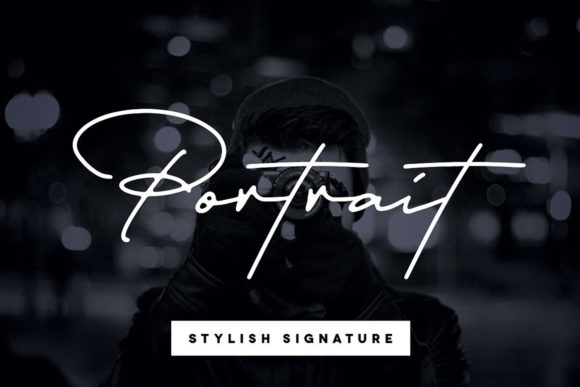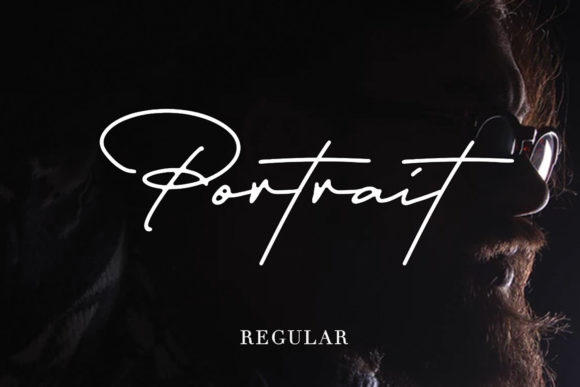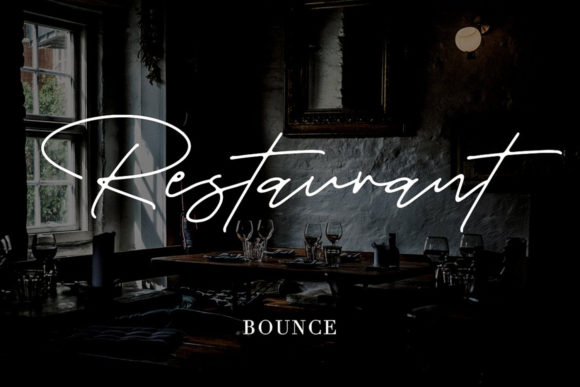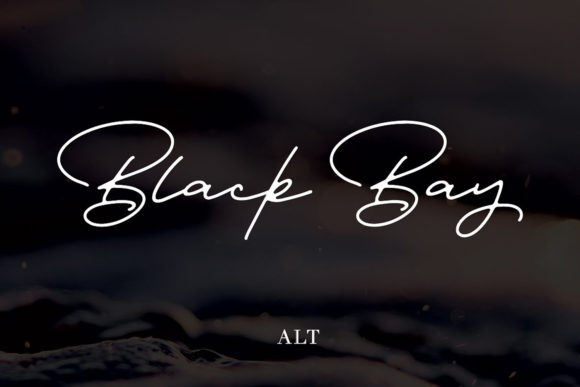
Portrait Font: Elegant Signature Script for Branding & Design
About the Portrait Font
Step up your design game with Portrait Font, a font that exudes confidence and style. Portrait is a handwritten font with a natural and stylish flow. It features an incredibly classic style, while still keeping a charming feel. This handwritten font is the perfect font for making original and outstanding designs.
Portrait’s elegant yet approachable style makes it ideal for branding projects requiring a touch of handwritten authenticity, particularly logos, short headlines, and invitations. It also works well on packaging for high-end products or boutique brands. However, its inherent informality and relatively low x-height make it unsuitable for body text or lengthy paragraphs, or UI elements needing high legibility.
Pairing Portrait with a clean sans-serif like Lato or Open Sans provides a strong contrast, balancing its handwritten charm with modern readability. For a more traditional feel, consider pairing it with a classic serif like Garamond or a more playful script font such as Great Vibes for a layered effect, depending on the desired mood.
Portrait exudes a sophisticated yet friendly personality, conveying both approachability and a sense of refined quality. It is best suited for brands aiming for a timeless, handcrafted aesthetic, rather than a modern, minimalist or highly technical one.
Portrait Font Usage Examples
Portrait Font Example